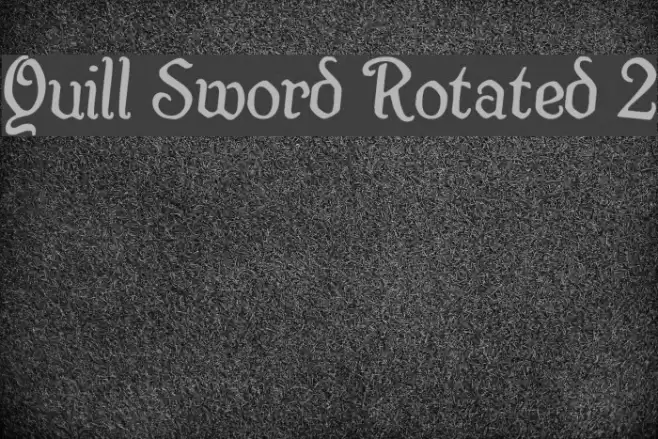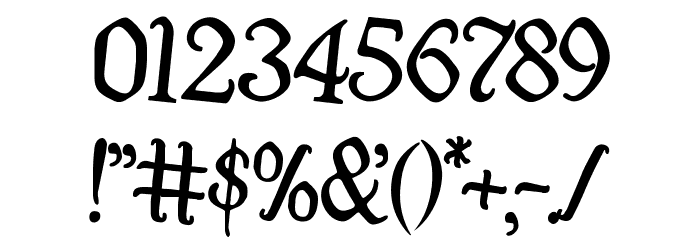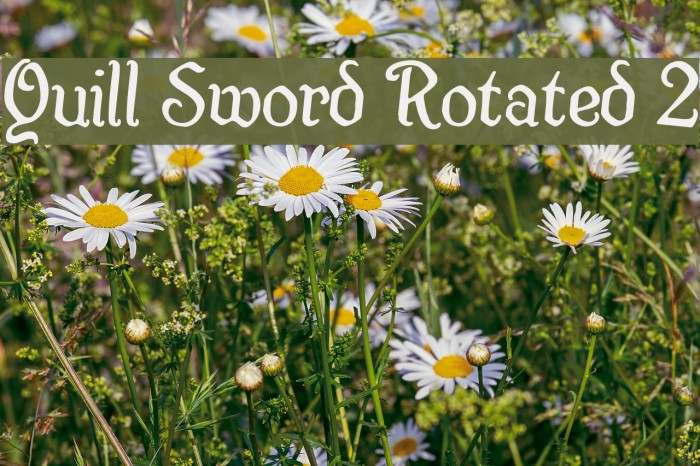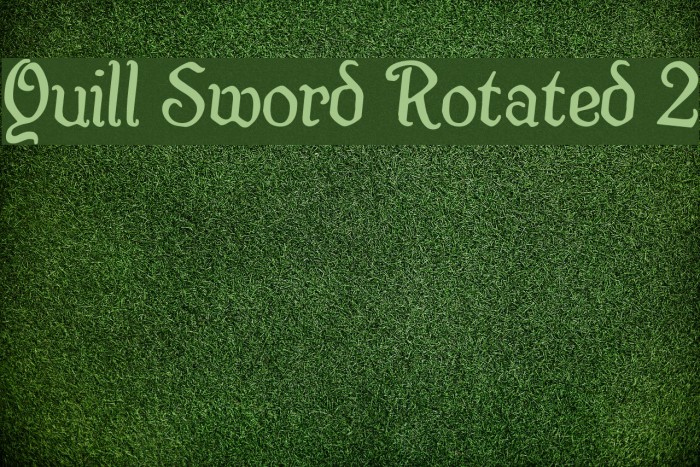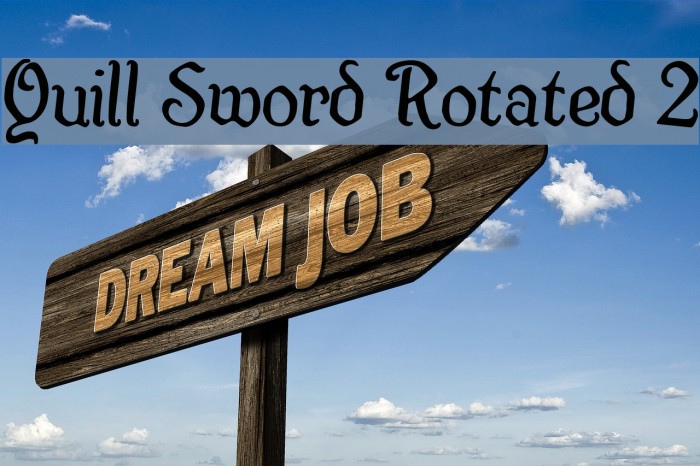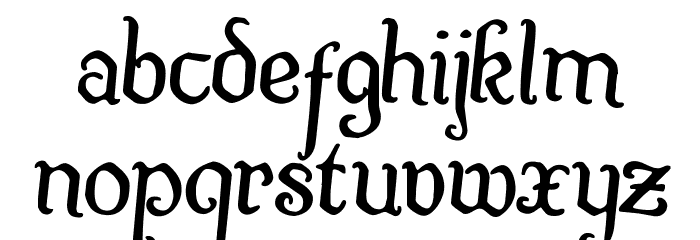
Quill Sword Rotated 2 Font
Quill Sword Rotated 2 Description
This font features a distinctive and ornate style, reminiscent of medieval calligraphy. The characters are embellished with flourishes and curves, giving them a decorative and elegant appearance. The uppercase letters are bold and commanding, while the lowercase letters maintain a consistent flow with a slightly more subdued presence. The numerals are clear and easy to read, yet they maintain the decorative theme of the font. Special characters are crafted with the same attention to detail, ensuring a cohesive look across all glyphs. This font is ideal for projects that require a touch of historical or fantasy elements, providing a unique and artistic flair.
An ornate, medieval-inspired font with decorative flourishes from Modern fonts.
- Proposed Projects: Perfect for fantasy book covers, historical event invitations, or themed branding.
- Overall Style: Vintage